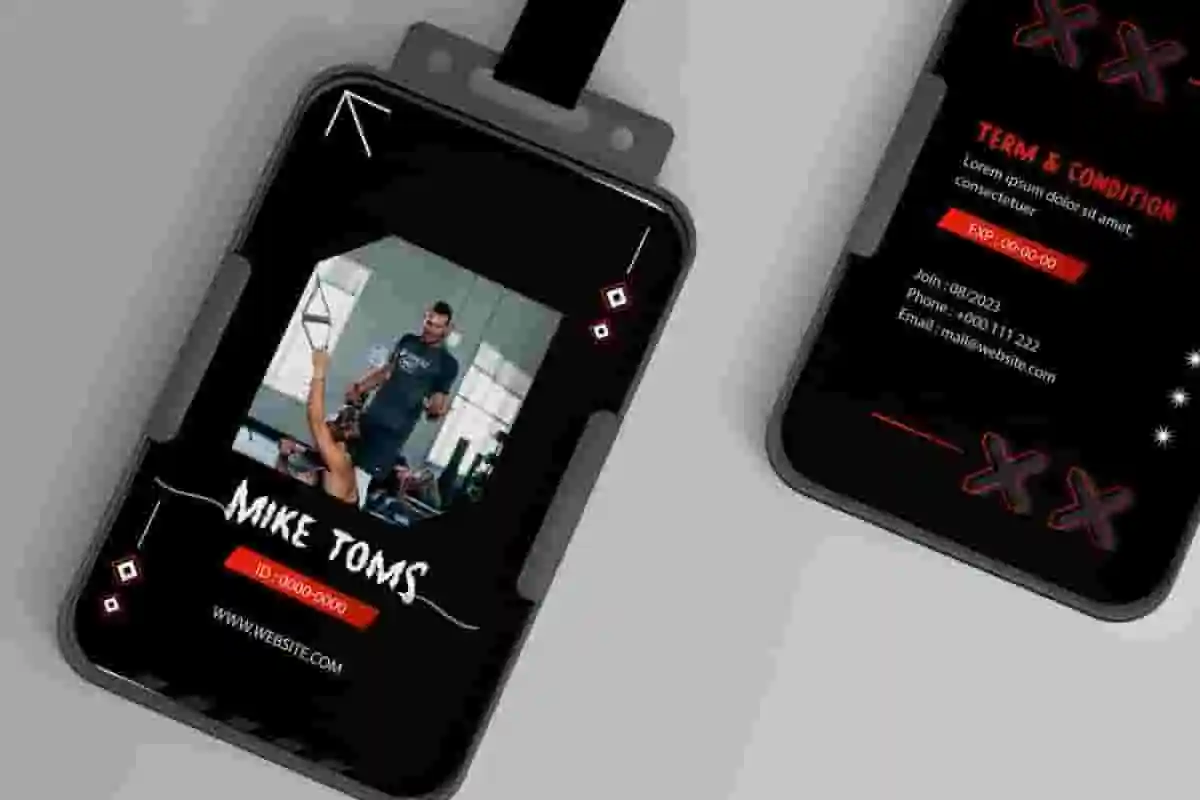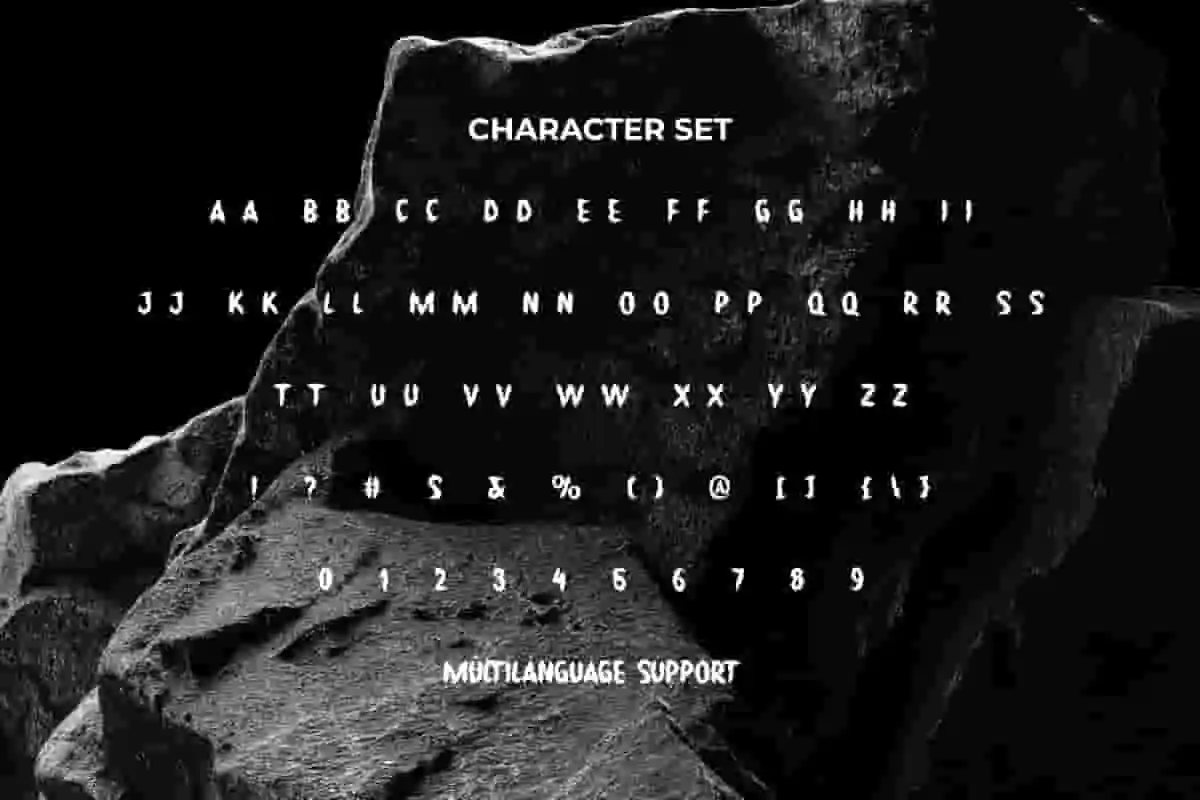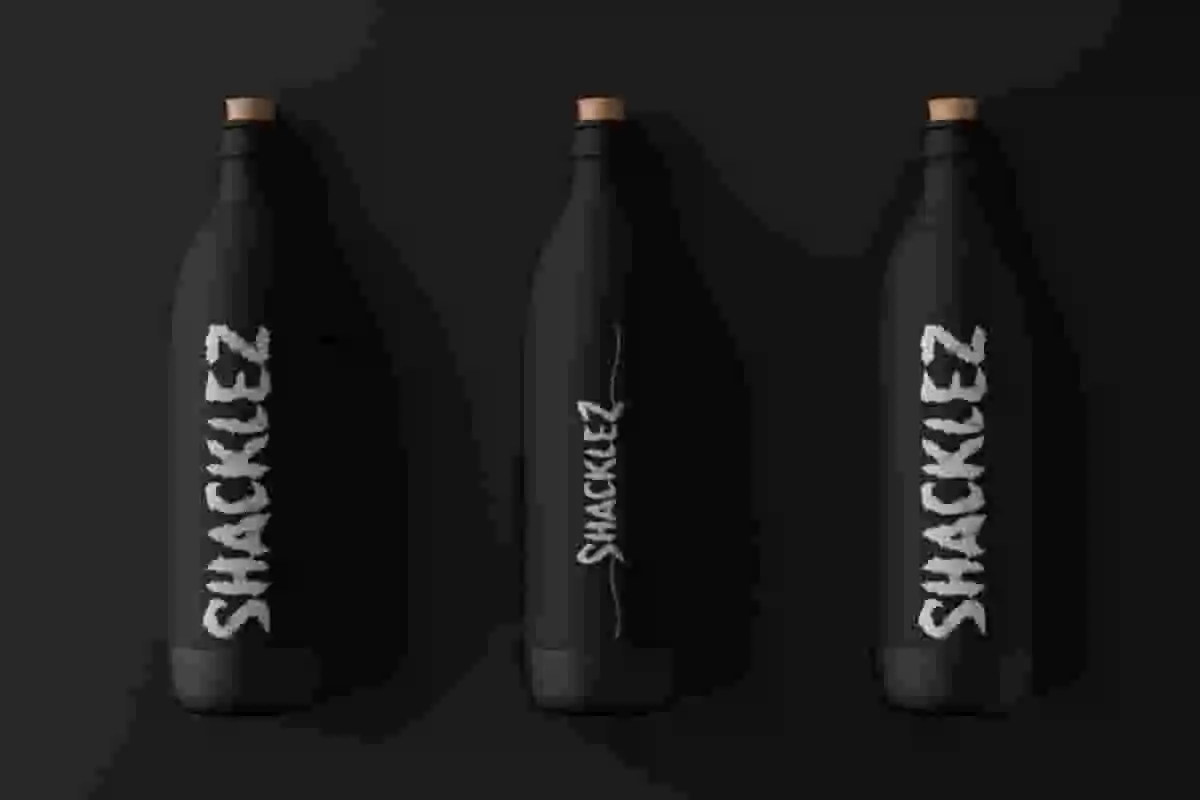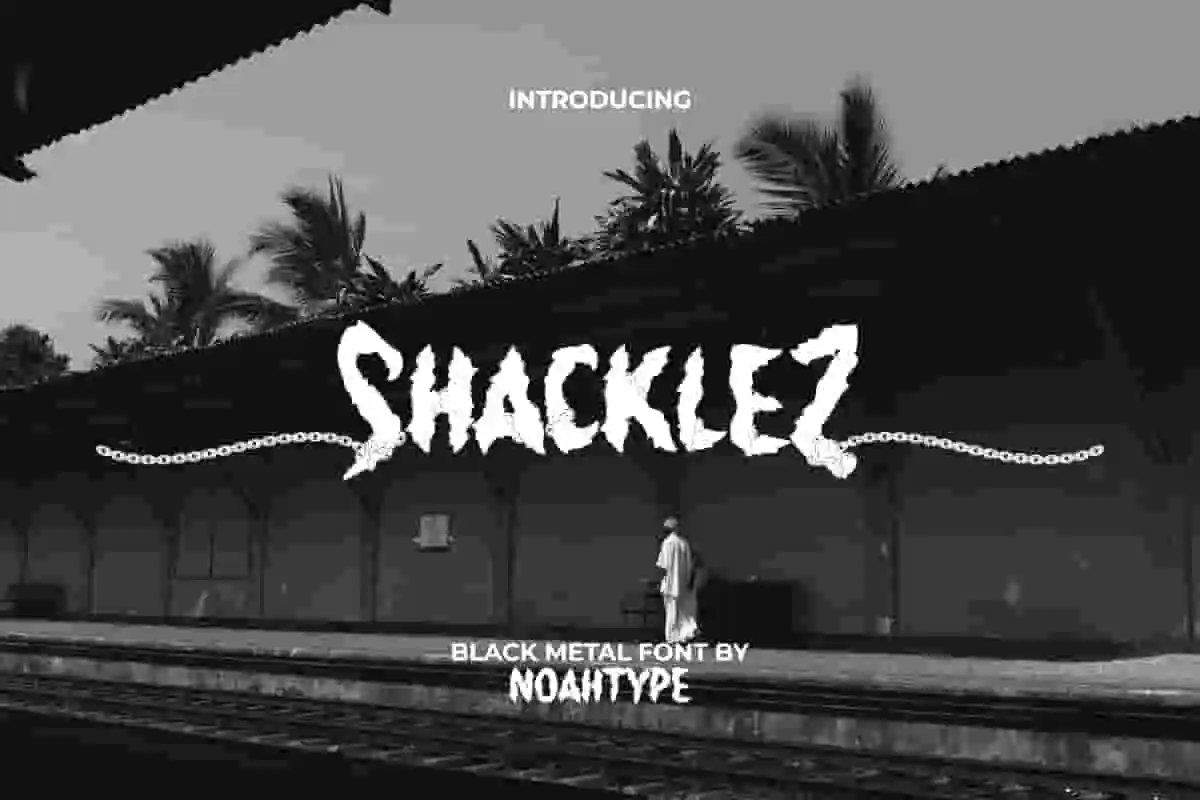
Shacklez Font is a harsh and horror black metal font with grunge style, created by NoahType. This font has a rough texture with small chains that appear to be wrapped around the characters to make it look fierce. It will be perfect for any designs, such as custom design, signage, poster, brand image, cover, invitation, label, marketing material, menu, printing, product packaging, quotes, website, and many more!
Shacklez Font includes full set of ALL CAPS for Uppercase and Lowercase Basic Characters, Numerals, Punctuation, Symbol, and Alternate. This font will make your design amazing and also a perfect choice for many industries, such as game, movie, event or festival, barber shop, fashion, accessories, advertising, art, café, printing, publishing, etc.